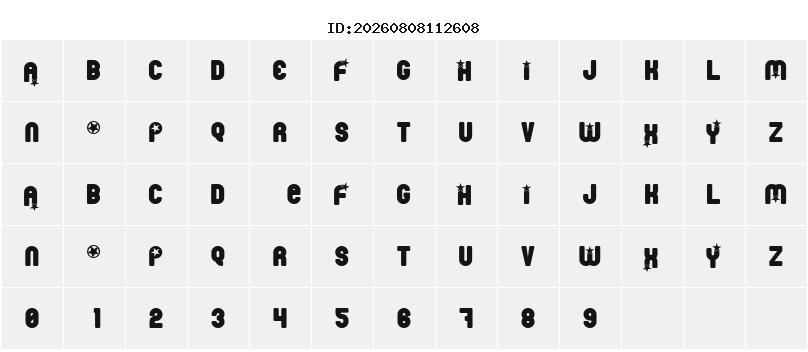
Pornstar Preview
• Font Name: Pornstar
About Pornstar.ttf
Pornstar.ttf is a modern, elegant sans-serif font designed for ultimate readability and visual harmony. Perfect for branding, headlines, web design, and print materials.